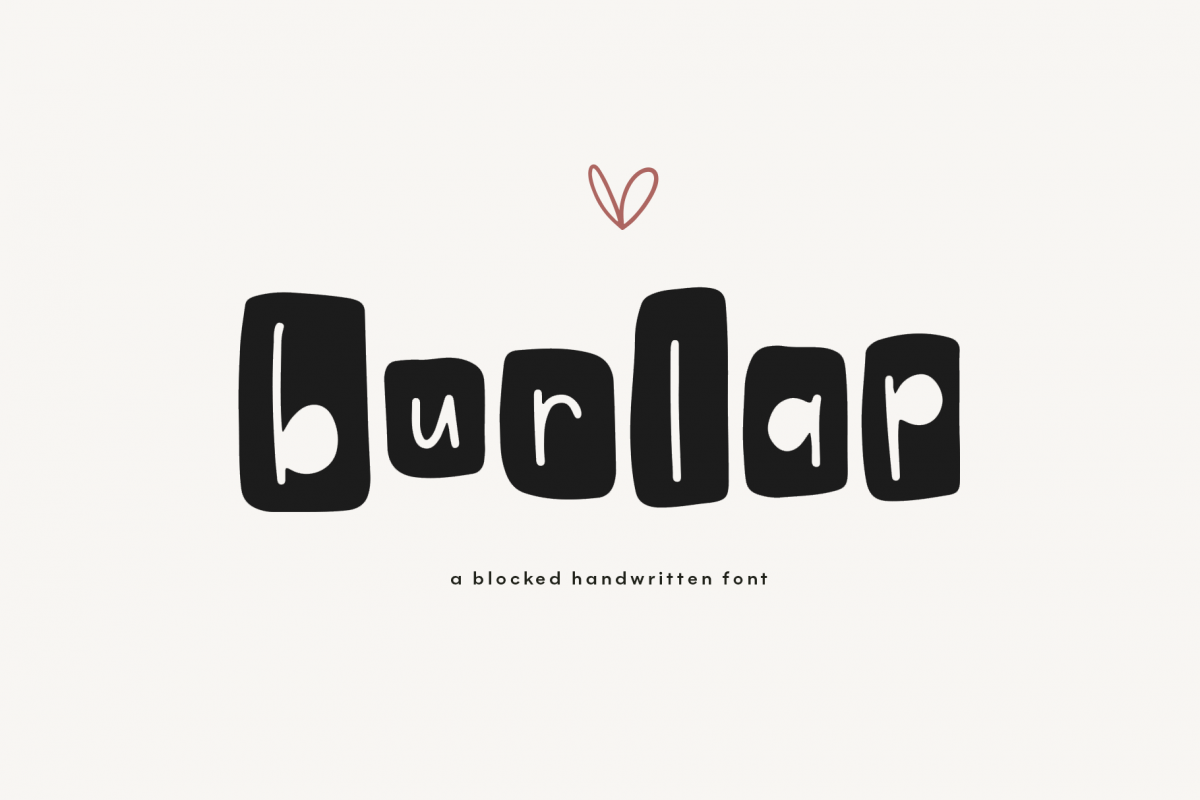
Burlap - A Fun Farmhouse Style Font
Burlap
Burlap is a fun & blocky handmade font.
The letters are suitable for signs, farmhouse decor, shirts, branding and more!